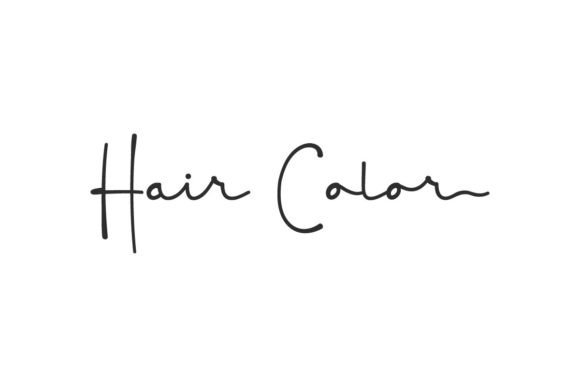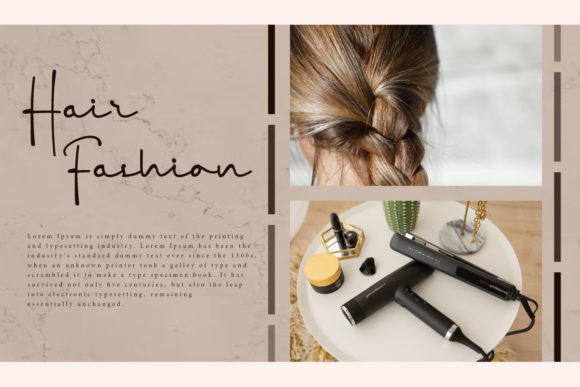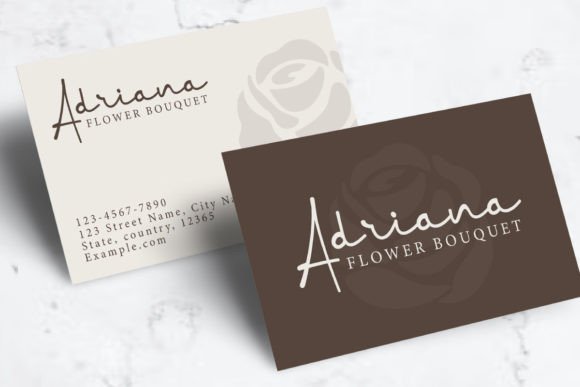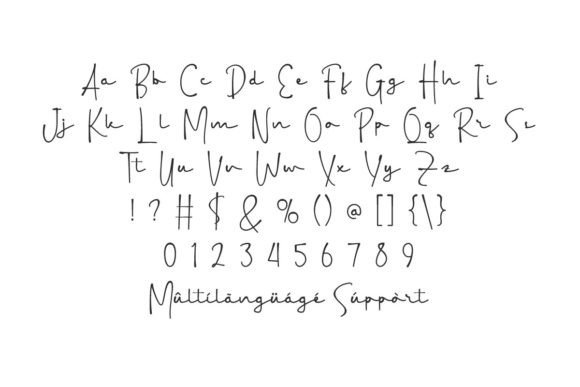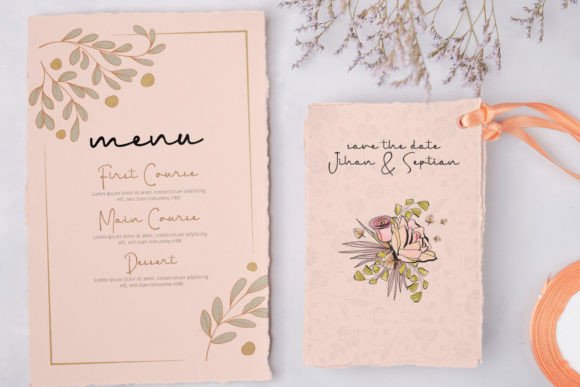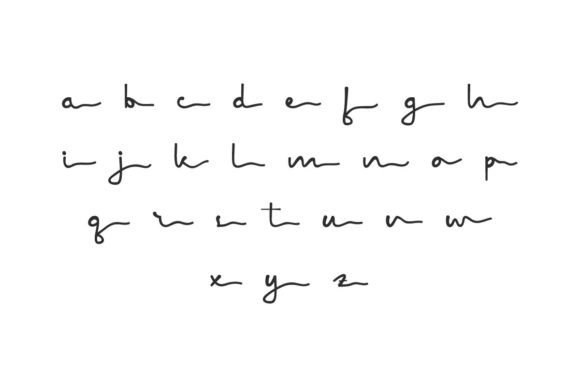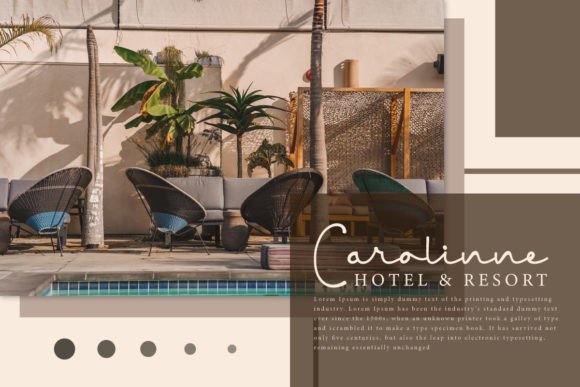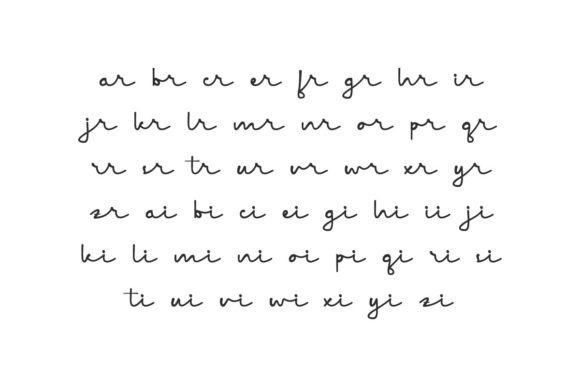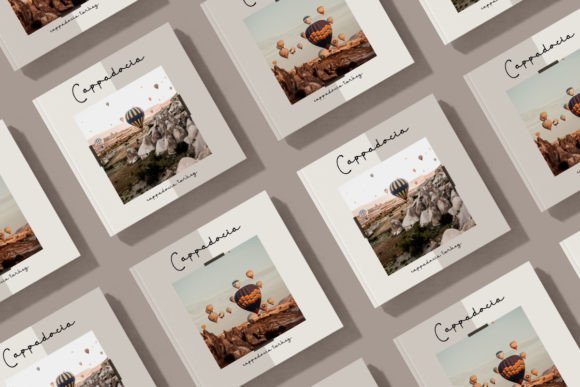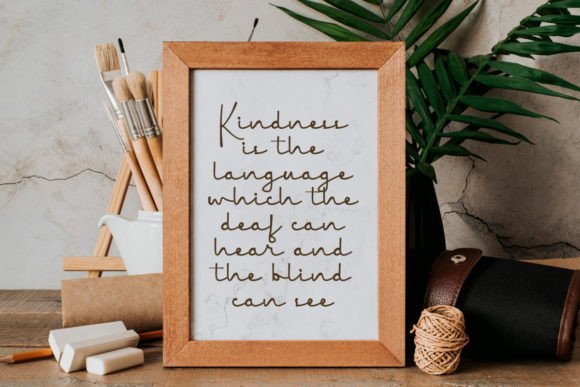
Hair Color Font
Hair Color Font : A Casual Handwritten Font for Authentic Designs
Introducing Hair Color, a charming handwritten script font that embodies a natural and relaxed style. This versatile typeface is perfect for creating designs that stand out with authenticity and individuality, making it an excellent choice for various creative applications.
Key Features of Hair Color Font
• Casual Handwritten Style: The font’s unique charm adds a personal touch to your designs.
• Versatile Application: Ideal for personal projects, branding materials, and more.
• Easy to Read: Maintains clarity while providing a friendly aesthetic.
Perfect for Multiple Design Projects
The adaptability of Hair Color makes it suitable for:
• Personal Projects: Create heartfelt greeting cards, invitations, or social media posts that resonate with your audience.
• Branding and Marketing: Convey a relatable and approachable image that connects with customers on a personal level.
• Digital Content: Enhance the aesthetics and readability of your text in blogs, websites, or digital graphics.
Enhancing Your Creative Vision
One of the standout features of Hair Color is its casual and natural appearance. The handwritten script style adds a genuine touch to your designs, making them feel more inviting. In today’s digital landscape, where authenticity matters, this font can help you create a connection with your audience.
Crafting with Hair Color
For personal projects, Hair Color is a wonderful choice for adding character. Whether you’re designing greeting cards or crafting unique social media posts, this font infuses your work with warmth and personality. Its friendly design ensures that your messages are clear and accessible.
Branding with Hair Color
In branding and marketing contexts, Hair Color can help establish a relatable image. Its unique style sets your brand apart from competitors while fostering a connection with customers. This font’s casual elegance can enhance your brand identity across various platforms.
In summary, Hair Color is a casual and tidy handwritten script font that adds a natural and authentic style to your designs. Its versatility makes it suitable for a wide range of applications, whether for personal projects, branding efforts, or digital content creation. Embrace the charm of Hair Color today! Use it to create unique and memorable designs that leave a lasting impression on your audience. With its friendly appearance and engaging style, this font is sure to become a favorite in your creative toolkit.